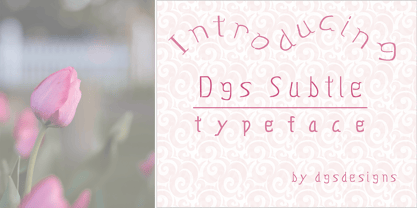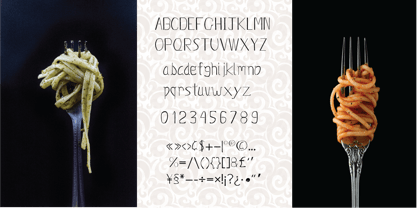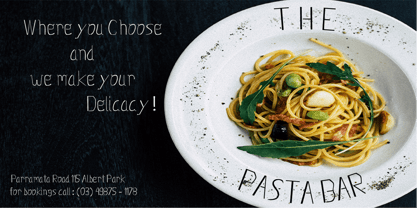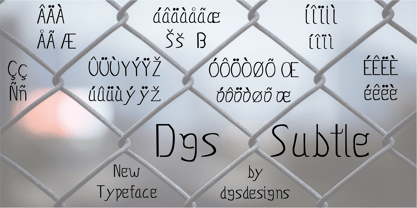
Dgs Subtle
by dgsdesigns
Dgs Subtle is a unique hand crafted front which has a subtle touch, that combines a craft script that has both thickness and thinness in its style.
The typeface is a modern, legible and a stylish font that can be incorporated into many different works adding both flare and a savvy twist to your projects.
Dgs Subtle can be used in invitations , art base presentations or exhibitions. Brochures and travel material. There is no limit in adding the Dgs Subtle to an array of savvy projects.
My initial idea when creating this typeface was to combine a subtle touch to a handcrafted typeface that is unique and combines a thickness and a thinness in its style. I believe in todays market which is highly competitive there is an increasing need for unique fonts that will leave a statement on your projects.
Dgs Subtle is the one - please enjoy!
Designers: Debbie Sinis
Foundry: dgsdesigns